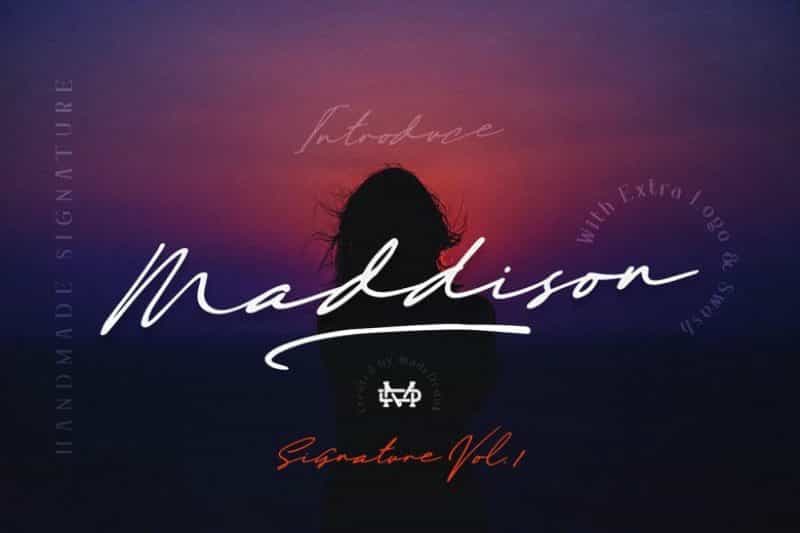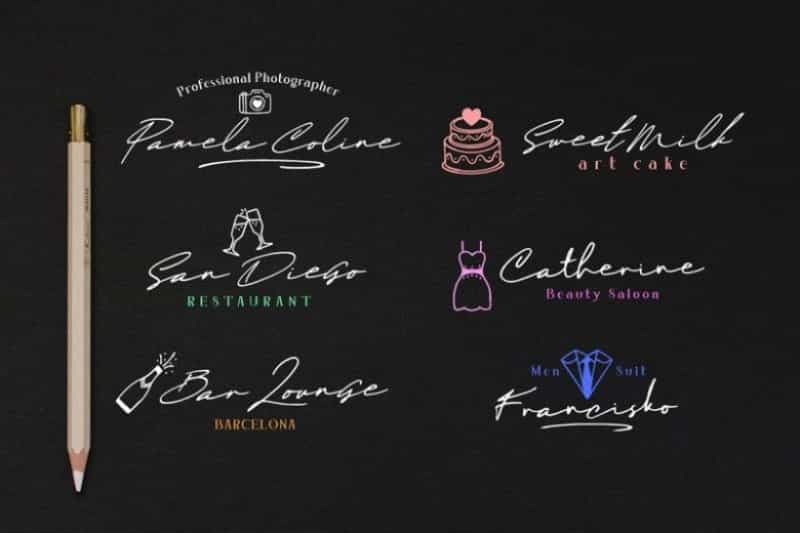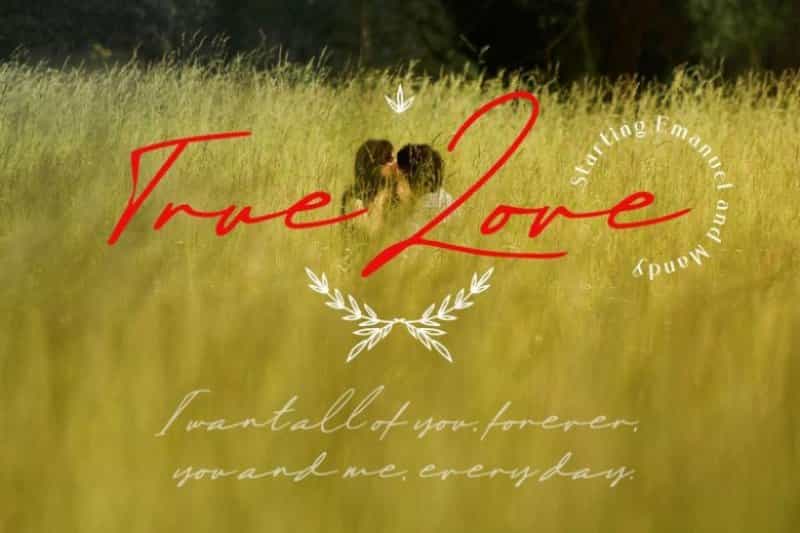
Meet Maddison gorgeous handmade signature font. Maddison signature includes more than 170 ligatures to make everything look natural handmade signature.